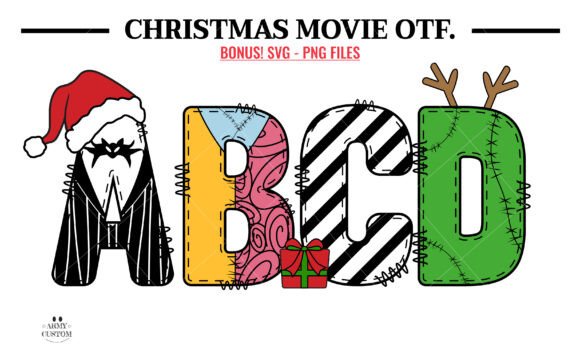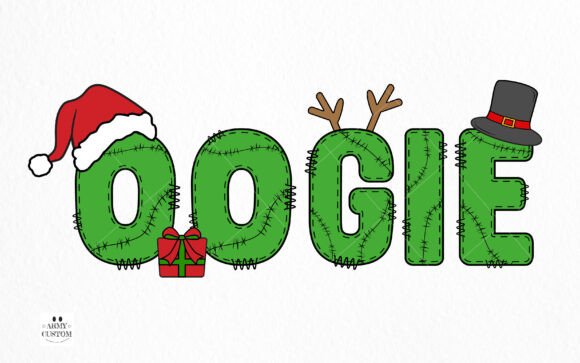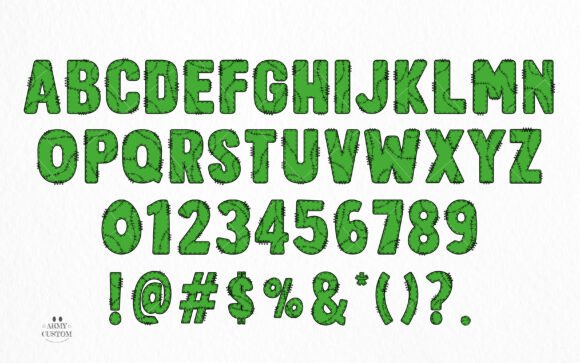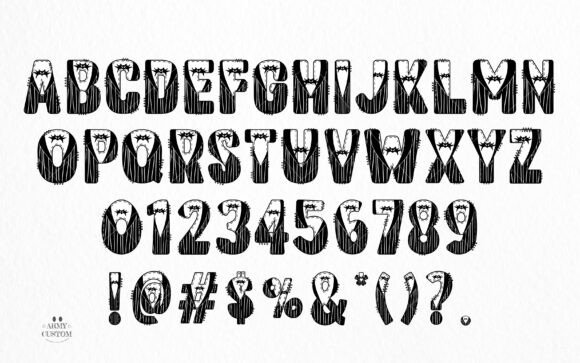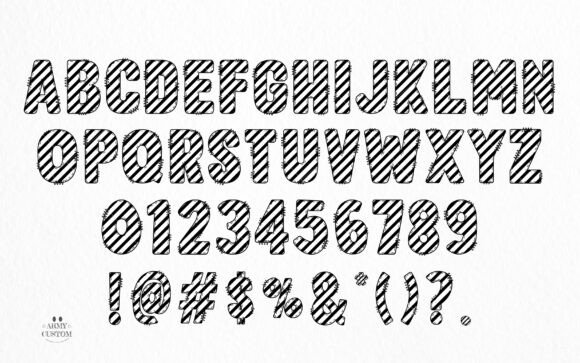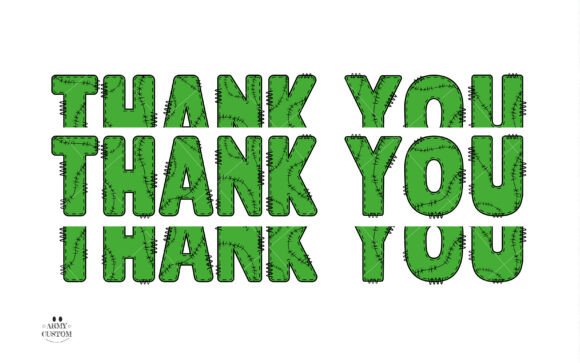
Christmas Movie Bundle Font
Elevate your festive projects with the delightful ‘Christmas Movie Font’. Imbued with a sense of whimsy, this font is a playful addition to your holiday design toolkit. Its jovial style makes it an ideal choice for creating vibrant holiday decorations or adding a dash of merriment to any design project. With the Christmas Elf Font, every letter spelled out becomes a joyous celebration, inspired by the adorable antics of Santa’s helpers. Indulge in the spirit of the holiday season with this charming, elfish font.